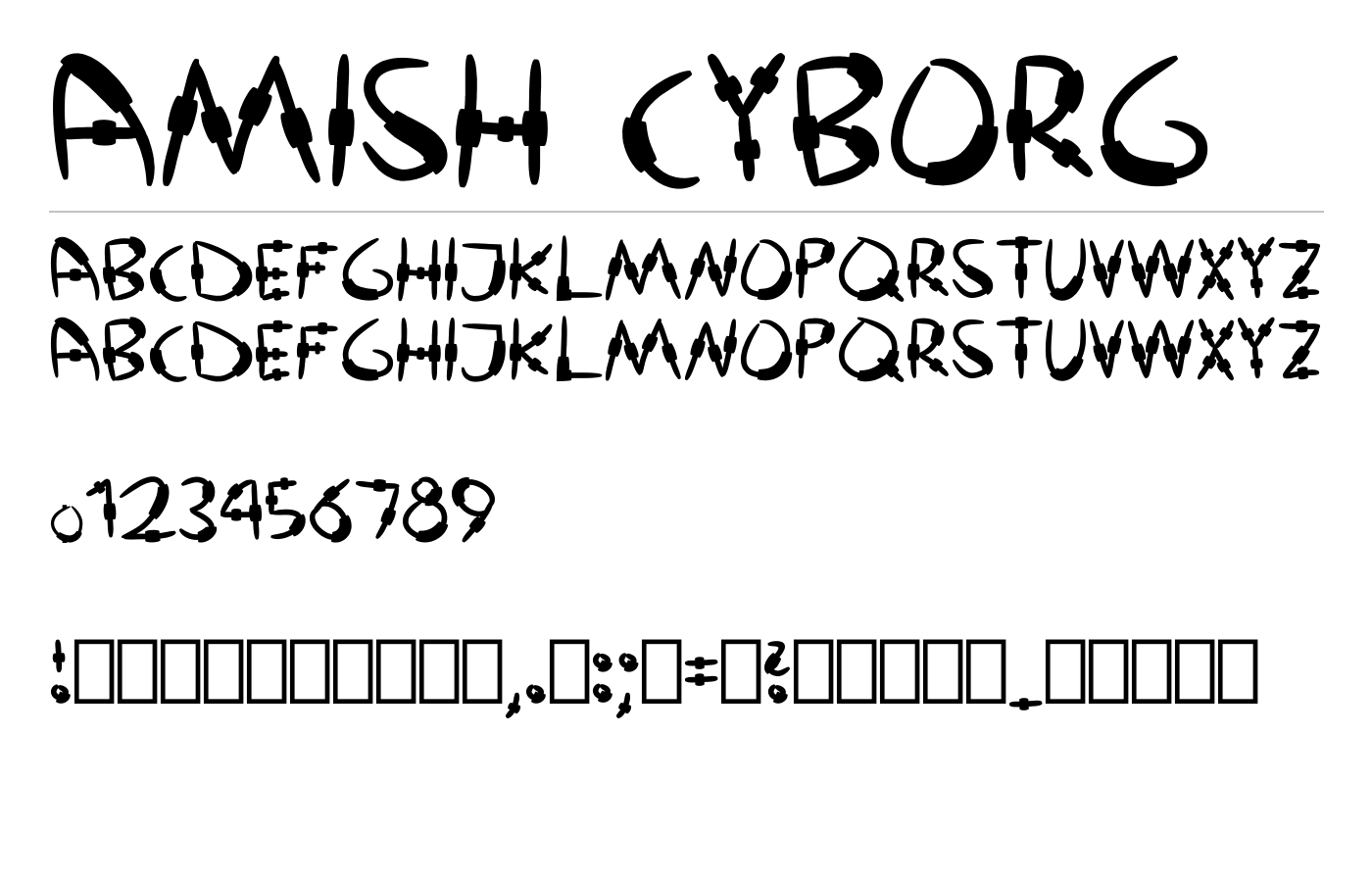
Amish Cyborg is a unique, quirky sans serif font that combines playful, irregular letterforms with mechanical, stitched-like details, evoking a handmade yet futuristic feel. Its uneven strokes and distinct connectors give it an organic, experimental vibe, making it perfect for creative projects, tech-inspired designs, and anything aiming for a fun but edgy personality. This font works well in logos, posters, and headlines where a standout, unconventional look is desired.
Amish Cyborg Font
About Amish Cyborg Font